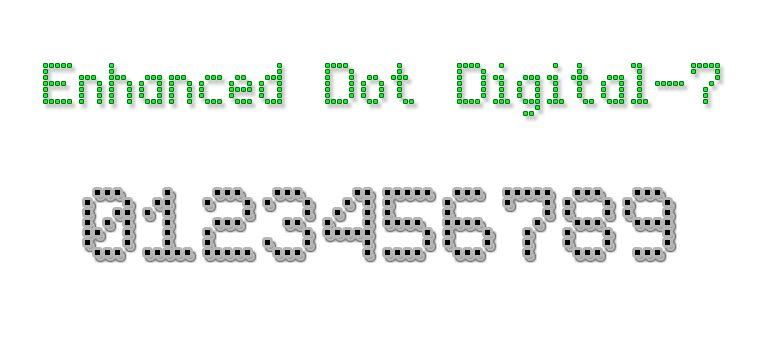
Enhanced Dot Digital-7 by Style-7 is a free dot-matrix pixel font with a sparse electronic-display character. Its tall letters use very few marks, leaving broad openings and a deliberately interrupted silhouette. The spacing is wide, regular, and distinctly mechanical.
Retro game interfaces are its clearest home. Scoreboard graphics, electronic music posters, and technology packaging also suit the lean, low-resolution forms. In product branding, the lettering can become part of a screen motif rather than a neutral label.
Enhanced Dot Digital-7